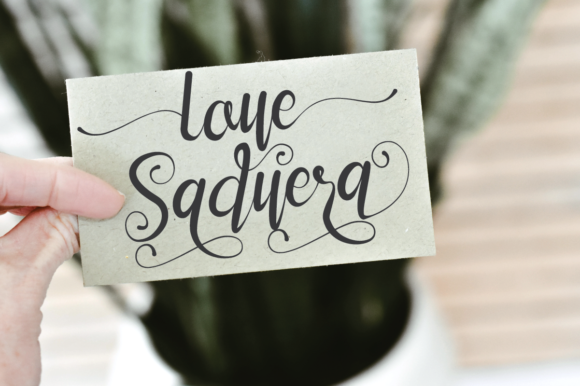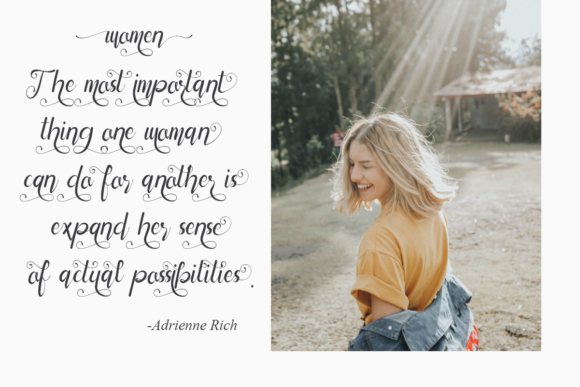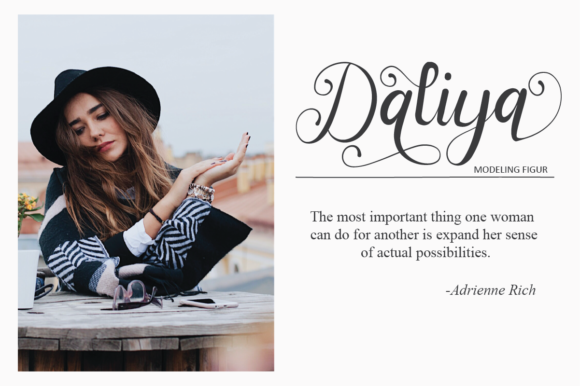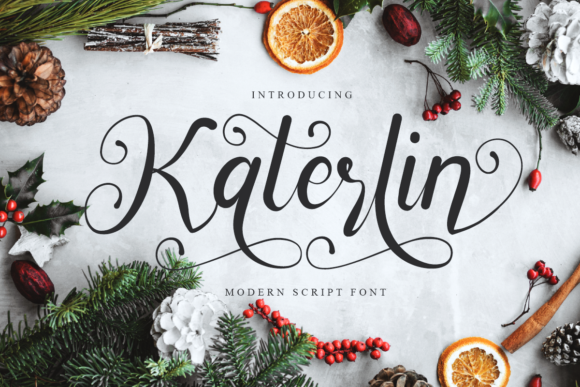
Introduction to Katerlin Font
Katerlin is a handwritten font which feels incredibly elegant and flowing.
It looks stunning on wedding invitations, thank you cards, quotes, greeting cards, logos, business cards and every other design which needs a handwritten touch This font is PUA encoded which means you can access all of the glyphs and swashes with ease.
Key Features of Katerlin Font